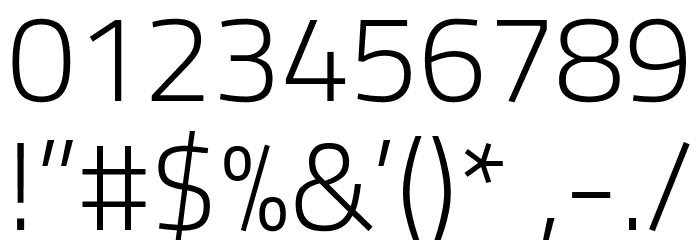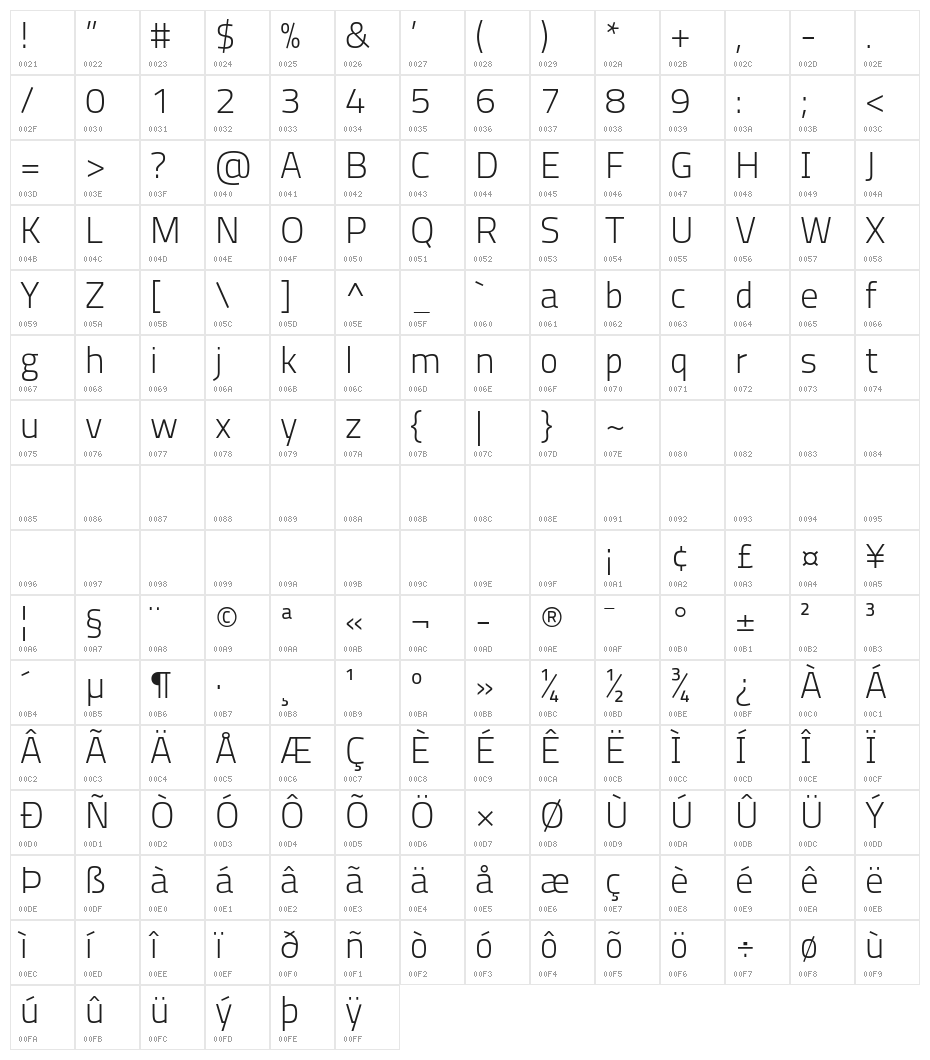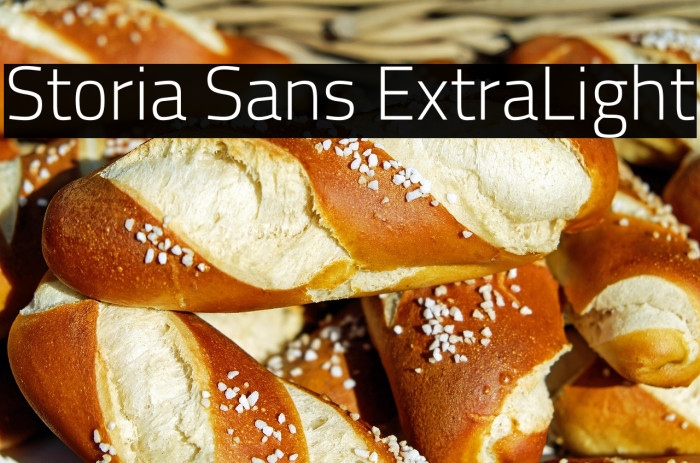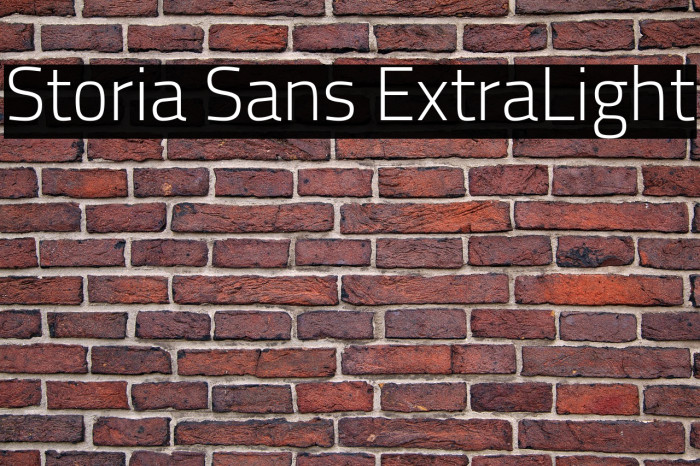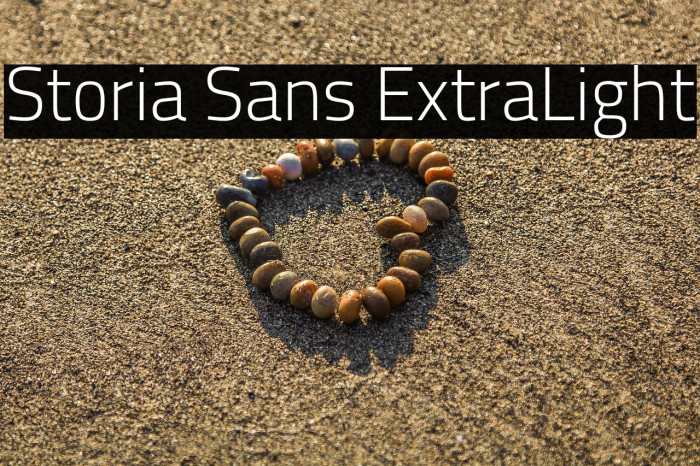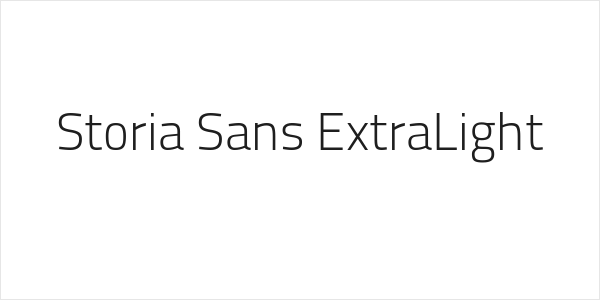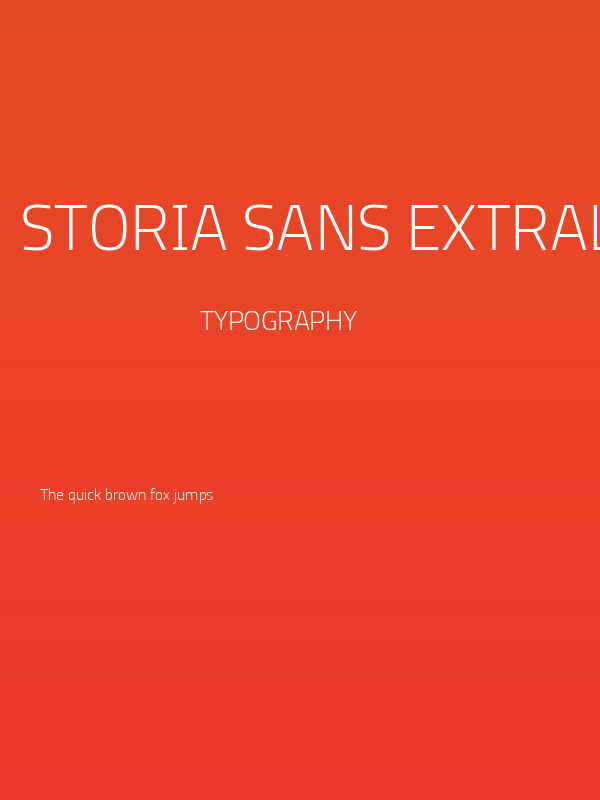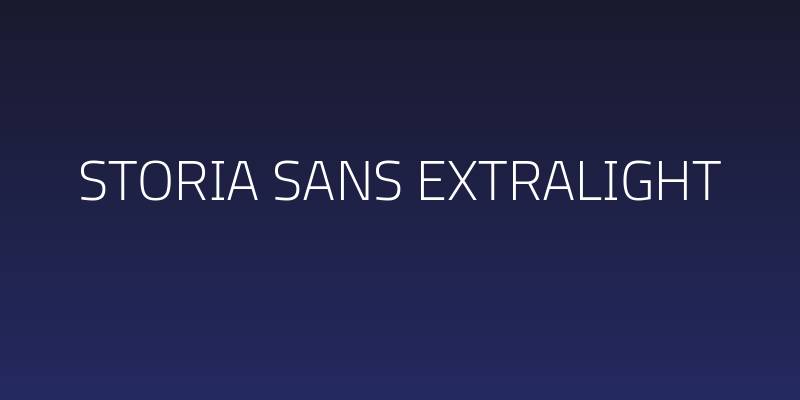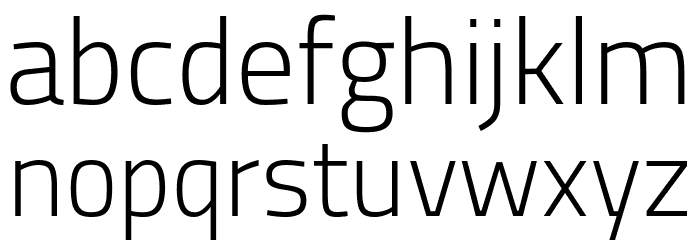
Storia Sans ExtraLight Font
Storia Sans ExtraLight Description
This font features a clean and modern sans-serif design with a focus on simplicity and readability. The characters are evenly spaced, providing a balanced and harmonious appearance. The strokes are consistent and uniform, contributing to a sleek and professional look. The font's extra light weight adds an elegant touch, making it suitable for minimalist designs. Its geometric shapes and smooth curves enhance its contemporary style, while maintaining clarity and legibility across different sizes.